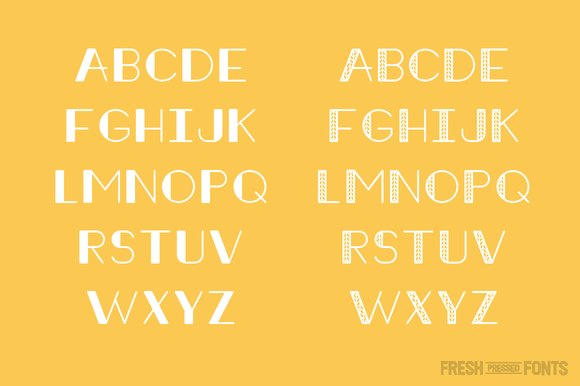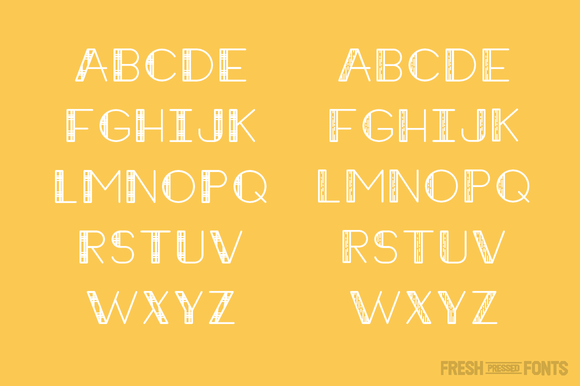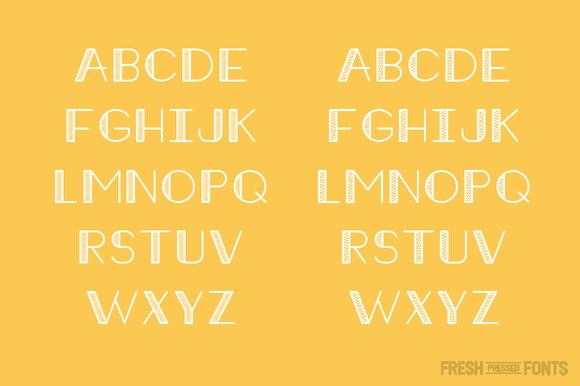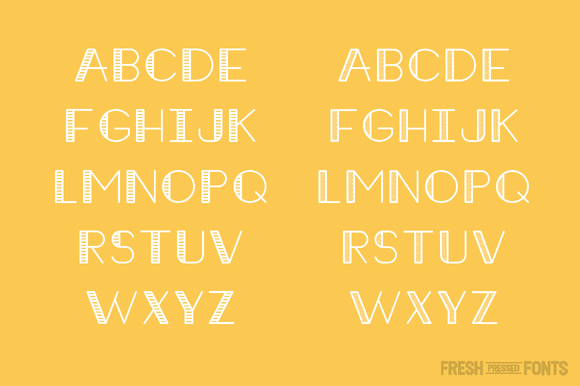
Introduction to Octomorf Font
As a designer, there’s nothing quite like the thrill of discovering a new font that perfectly captures the mood of your creative project. It’s that moment when everything clicks, and your design begins to take shape. For me, that moment came when I stumbled upon the incredible Octomorf Font.
With its 8 unique styles, each with its own distinct pattern, the Octomorf Font is a game-changer for designers. From the elegant Octomorf Ivy to the edgy Octomorf Radical, this font offers endless possibilities for creative expression. Whether you’re working on a high-end design project or just need a reliable design resource, the Octomorf Font is sure to impress. And the best part? It’s available for free download, complete with a transparent background, making it perfect for any design endeavor.
Key Features of Octomorf Font
- High-quality design resource with a unique and creative style, ideal for any project.
- Comes in multiple weights and styles, providing designers with a range of options to suit their creative needs.
- Perfect for use in logos, branding, typography, and other design elements, adding a touch of sophistication and elegance to any project.
Honest Review: Octomorf Font
As a designer, I’m always on the lookout for high-quality design resources that can elevate my creative projects. Recently, I stumbled upon the Octomorf Font, and I’m excited to share my honest review with you.
What works well: ✨ The Octomorf Font has a unique and futuristic feel to it, making it perfect for projects that require a cutting-edge look. The font is highly customizable, allowing you to adjust the weight, size, and color to suit your design needs. The transparent background feature is also a major plus, making it easy to layer the font over images or other design elements.
- Unique and futuristic design
- Transparent background feature
Limitations: ⚠️ While the Octomorf Font is a great addition to any designer’s toolkit, it’s worth noting that it’s a relatively new font and may not be as widely supported as some other fonts. Additionally, some users have reported issues with the font’s kerning, which can affect the overall appearance of your design.
Overall, I’m impressed with the Octomorf Font and would recommend it to designers looking for a unique and high-quality design resource. With a little tweaking to address the kerning issues, I think this font has the potential to become a staple in many designers’ toolkits.
Octomorf Font is ideal for various creative projects, including graphic design, digital art, and even branding. You can use it for headings, titles, icons, and other design elements that require a high-quality, unique font. The free download option makes it an excellent resource for designers and artists on a budget.